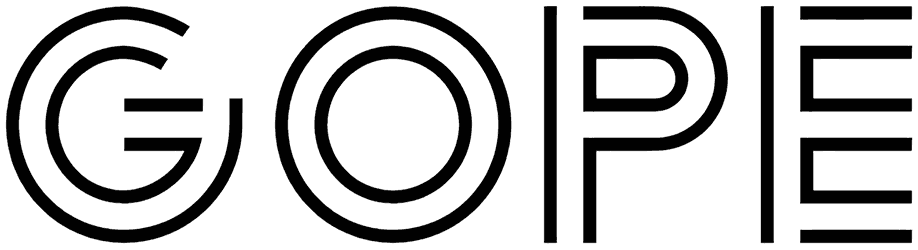
Gope Font
If you are looking for a font with a neat feeling, the Gope font is a good choice. The characters of this neon font contain simple and minimal lines.
The most eye-catching feature of this font is the discontinuity of each letter that creates an empty space between lines. Although the Gope font does not support lowercase letters and symbols, it can be used in such cases as logos and titles.